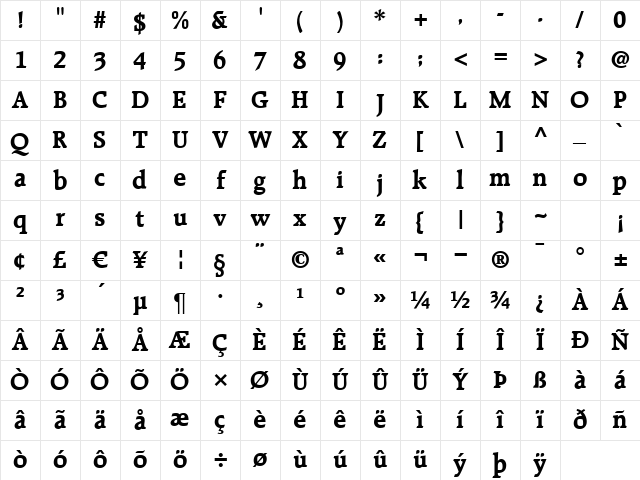
R651-Roman Bold
Design Context for R651-Roman
R651-Roman is a composed and adaptable typeface that performs quietly and consistently across a wide range of design contexts. Its bold stroke weight gives it real presence on the page.